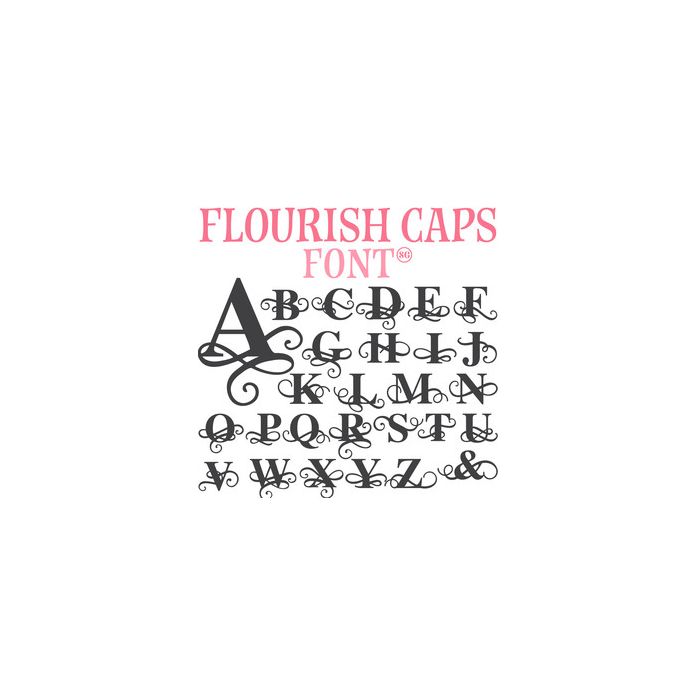
This flourish alphabet can be used for any project! This font includes an Uppercase set *Kerning, letting, and baseline may need to be adjusted for desired effect.